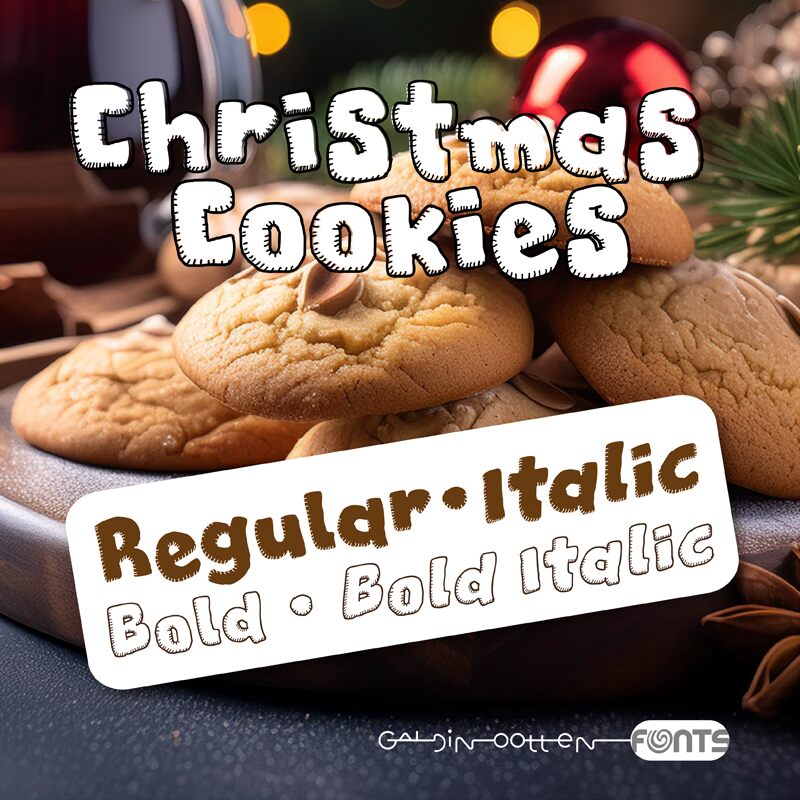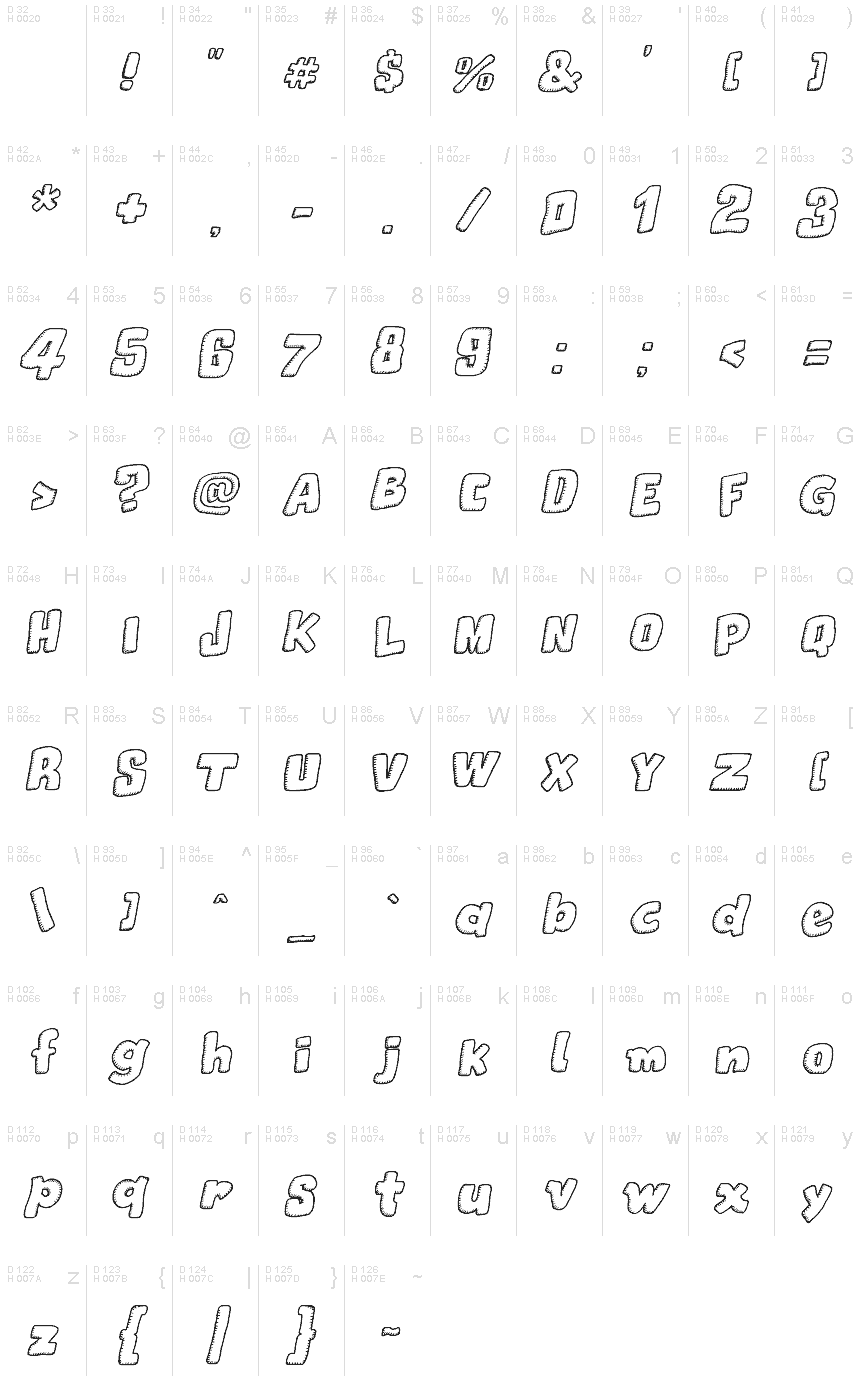
Christmas Cookies Bold Italic
Christmas Cookies Bold Italic font by Galdino Otten Fonts is a free display font whose forms’ cartoonish aesthetic and decorative nature match its holiday theme. The whimsical letters will provide your designs with a playful mood inspired by all the sweet activities of Christmas time like baking Christmas cookies in similar magical shapes.